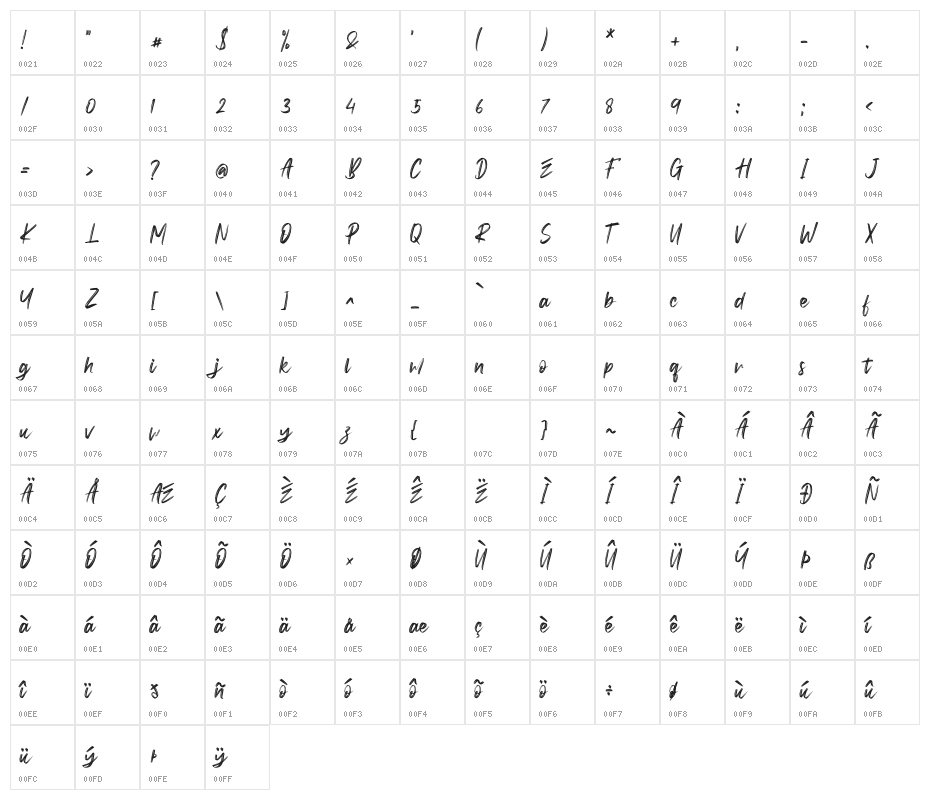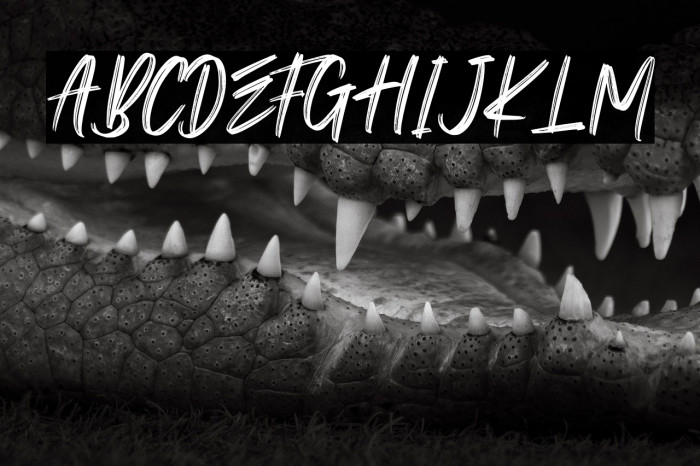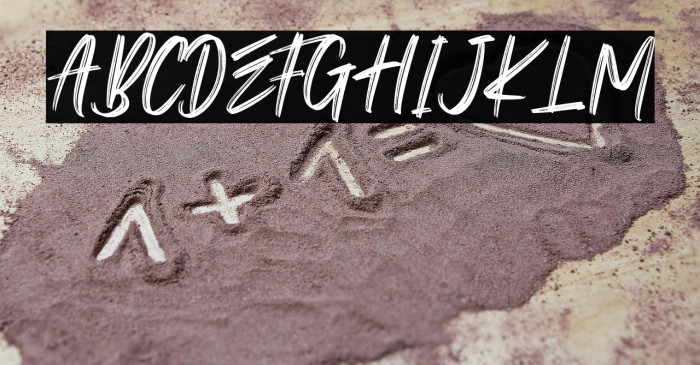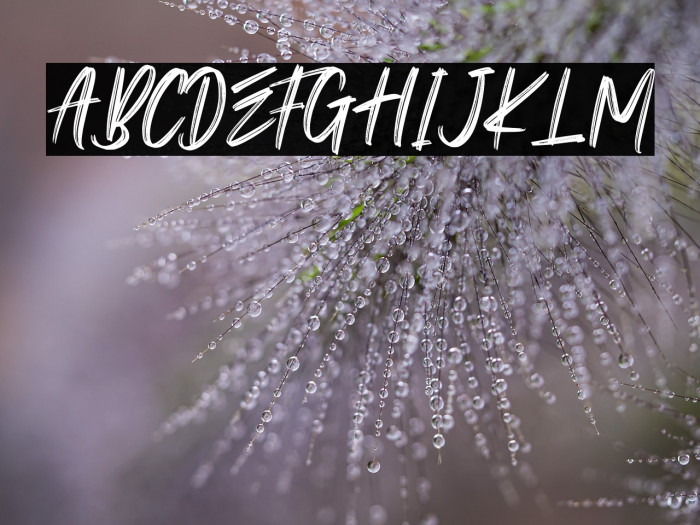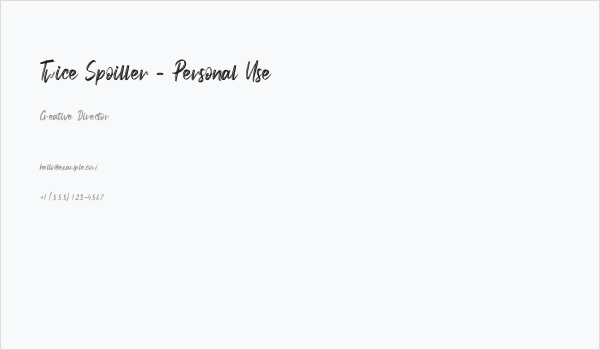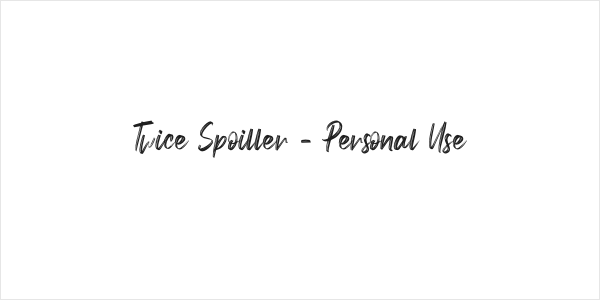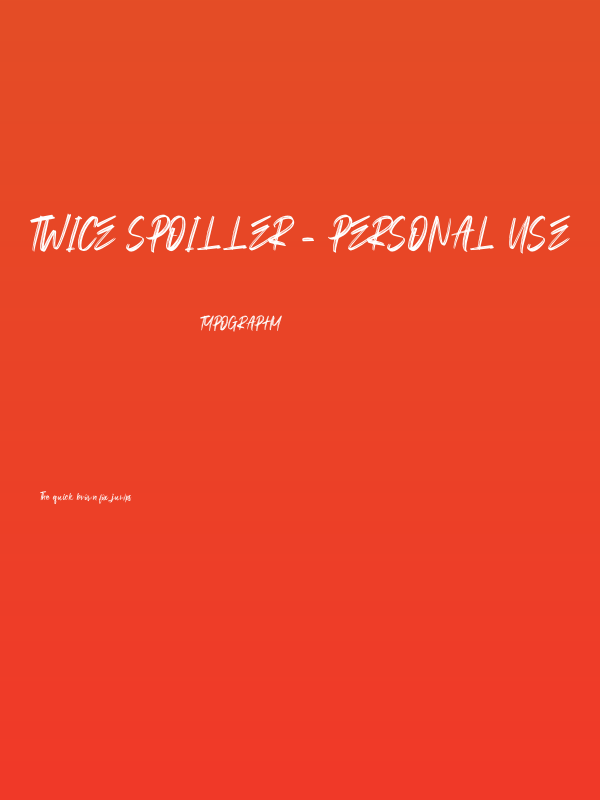
Twice Spoiller - Personal Use Font
Twice Spoiller - Personal Use Description
This font features a dynamic and energetic script style, characterized by its bold and flowing strokes. The letters are slightly slanted, giving a sense of movement and fluidity. The uppercase and lowercase letters maintain a consistent style, with some playful variations in the loops and curves, adding a touch of personality. The numbers and special characters are designed to match the overall aesthetic, ensuring a cohesive look across all text elements. This font is perfect for projects that require a lively and expressive touch.
Use CaseLogos, Headlines, Invitations
Proposed ProjectsIdeal for branding, invitations, posters, and any design needing a lively, personal touch.